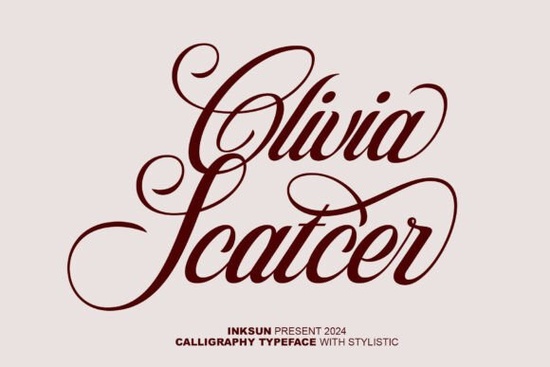
When it comes to adding a touch of elegance and sophistication to your design projects, the Olivia Scatcer Font is a wonderful choice. This exquisite calligraphy typeface is designed to infuse your work with luxury and grace, making it perfect for a wide range of creative endeavors.
Why Choose Olivia Scatcer for Your Next Project?
The Olivia Scatcer Font stands out with its elegant contrast between thick and thin strokes, which gives it a refined and artisanal quality. Whether you're working on luxury branding, upscale wedding invitations, or high-end packaging, this font can bring a personal and sophisticated touch to your designs.
Perfect for Luxury Branding
Luxury brands often require a font that exudes class and refinement. The Olivia Scatcer Font fits this need perfectly. Its graceful lines and elegant curves make it an ideal choice for logos, business cards, and other branding materials. If you're looking to create a memorable and luxurious brand identity, this font can help you achieve that.
Ideal for Wedding Invitations
Wedding invitations set the tone for one of the most important days in a couple's life. The Olivia Scatcer Font, with its beautiful calligraphy style, can add a touch of romance and elegance to these special announcements. Whether you're designing for a traditional, modern, or rustic wedding, this font can complement any theme and make the invitations stand out.
Enhance Editorial Headers
Editorial design often requires fonts that are both stylish and legible. The Olivia Scatcer Font strikes the right balance with its elegant yet readable style. Use it for headlines, subheadings, and other prominent text elements in magazines, blogs, and other editorial content. It can help draw readers in and make your content more engaging.
High-End Packaging Solutions
Product packaging is the first point of contact with many customers, and it needs to make a strong impression. The Olivia Scatcer Font can help you create packaging that feels luxurious and thoughtful. Whether you're designing labels, boxes, or tags, this font can add a touch of sophistication that resonates with your audience.
Complementary Fonts for a Cohesive Look
While the Olivia Scatcer Font is versatile and can stand alone, combining it with complementary fonts can enhance the overall design. Here are a few options to consider:
How to Use Olivia Scatcer Font Effectively
To get the most out of the Olivia Scatcer Font, here are some practical tips:
- Balance Elegance and Readability: While the font is elegant, ensure it remains legible, especially for longer texts. Consider using it for headings and short phrases.
- Pair with Simpler Fonts: For body text or longer paragraphs, pair it with simpler, more readable fonts to maintain clarity.
- Experiment with Colors and Textures: Play with different colors and textures to see how they interact with the font. This can help you find the best combination for your project.
- Test on Different Platforms: Make sure the font looks good across various devices and platforms. Test it on mobile, desktop, and print to ensure consistency.
Next Steps for Designers and Crafters
Now that you have a better understanding of the Olivia Scatcer Font and how to use it effectively, here’s a quick checklist to guide you through your next design project:
- Choose the right context for the font, such as luxury branding, wedding invitations, or high-end packaging.
- Select complementary fonts to create a cohesive and balanced design.
- Test the font with different colors, textures, and platforms to ensure it meets your design goals.
- Experiment with the font in various design elements, such as headlines, subheadings, and decorative text.